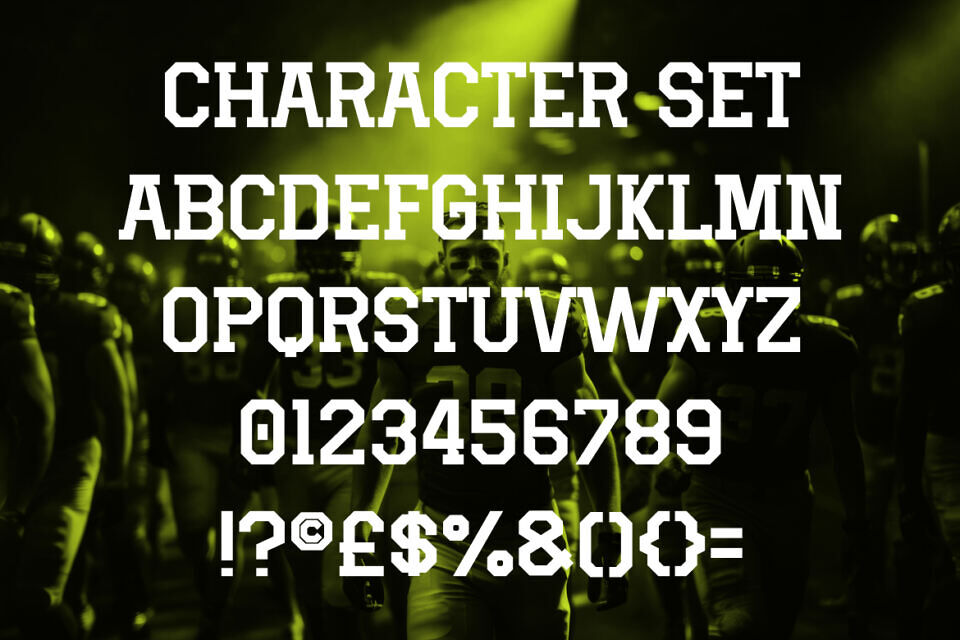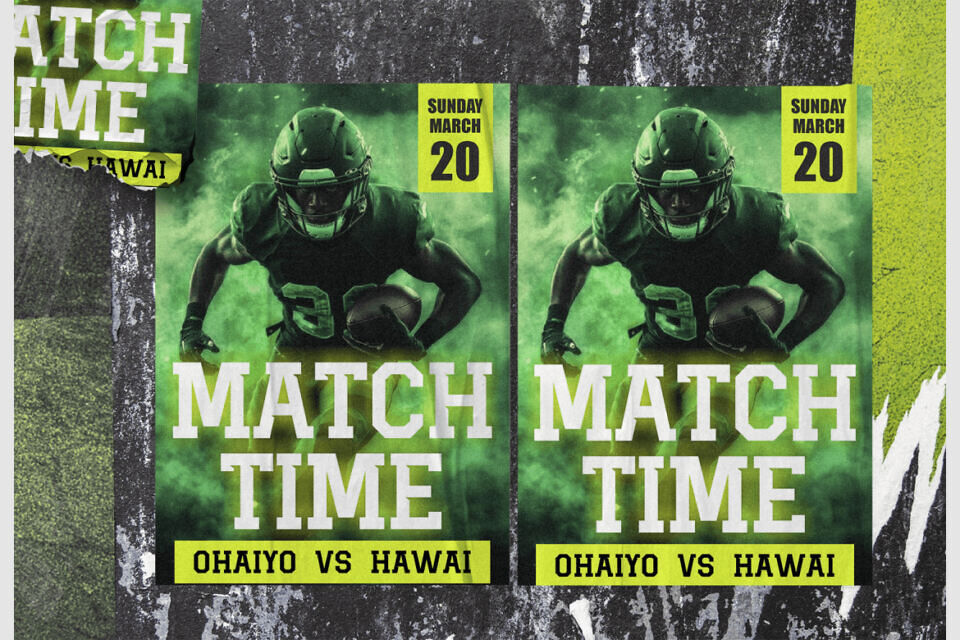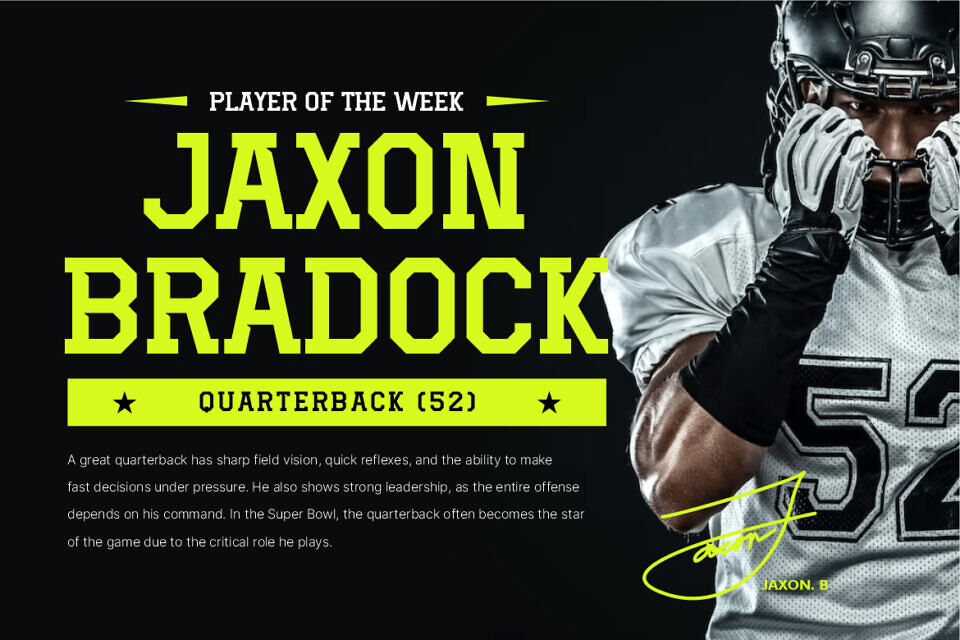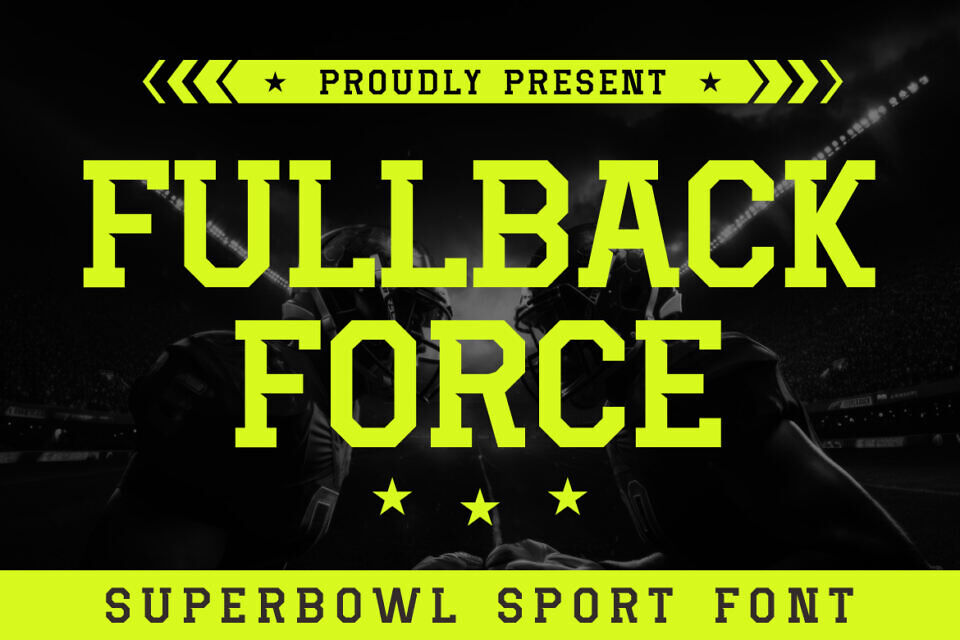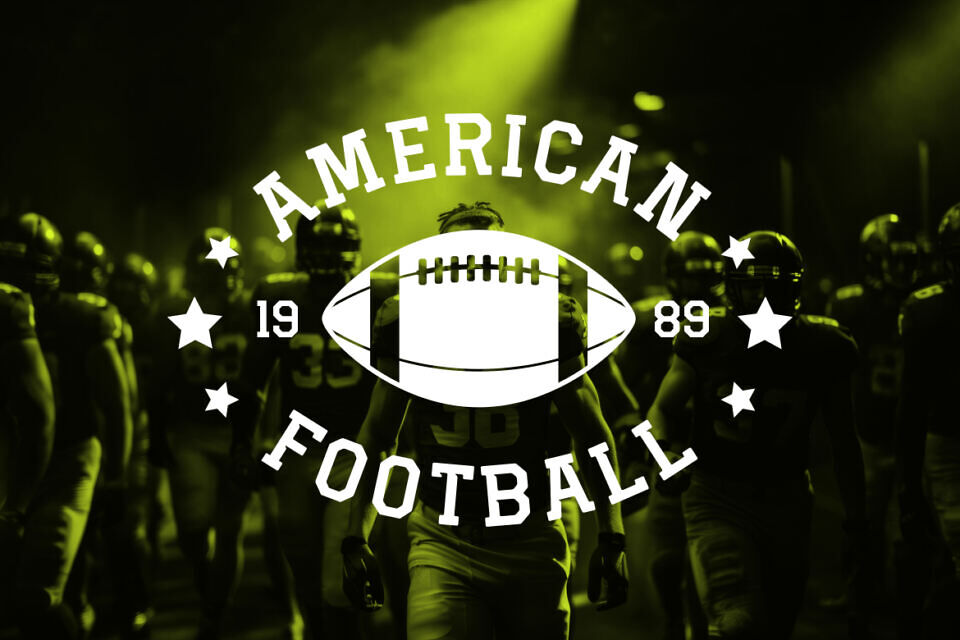
Fullback Force Font
Fullback Force – Superbowl Sport Font is a robust and dynamic digital typeface inspired by the adrenaline-packed spirit of American football and the Superbowl. Designed specifically to echo the strength, power, and competitive intensity of rugby-style sports, this font exhibits solid, angular characters with bold serifs and sharp edges, perfectly capturing the essence of athletic vigor.
The strong geometric structure and heavy-weighted letters ensure maximum readability, while the stylish, sporty aesthetic provides a compelling visual impact, ideal for any sport-themed project or promotional material.